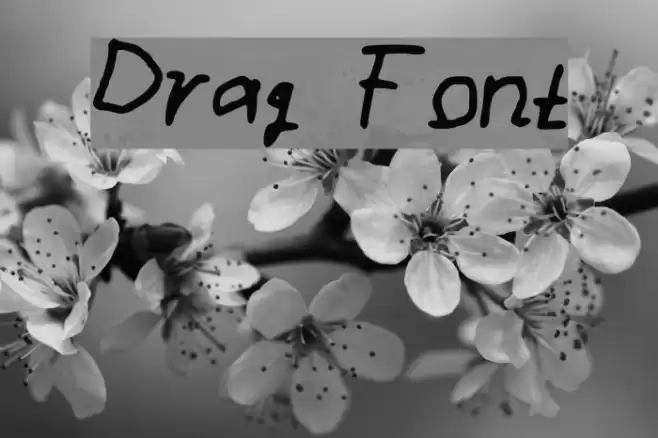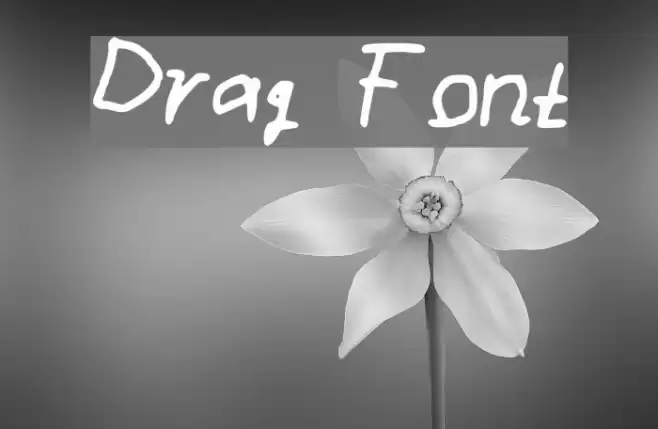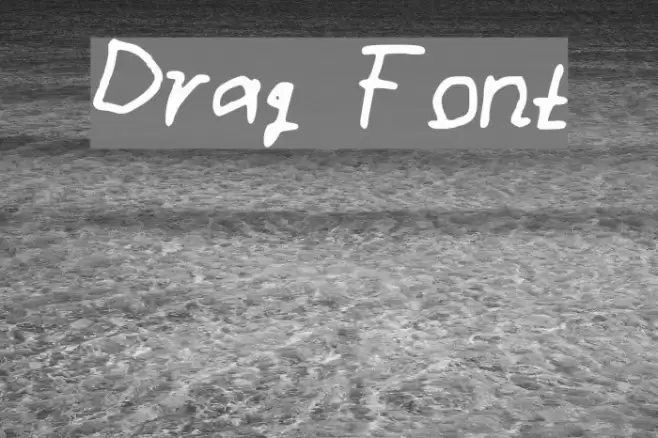
Drag Font
Drag Description
This font features a casual, handwritten style with a playful and informal appearance. The letters are unevenly spaced and vary in size, giving it a dynamic and lively feel. The strokes are bold and slightly irregular, mimicking the natural flow of handwriting. This font includes both uppercase and lowercase letters, numbers, and a selection of special characters. The overall look is approachable and friendly, making it suitable for projects that require a personal touch or a relaxed vibe.
A casual, handwritten font with bold, irregular strokes and a playful appearance from Handwritten fonts.
- Proposed Projects: Ideal for greeting cards, personal notes, informal invitations, and creative projects that require a personal touch.
- Character Spacing: Wide
- Overall Style: Casual
- Use Case: Logos, Headlines, Informal Text